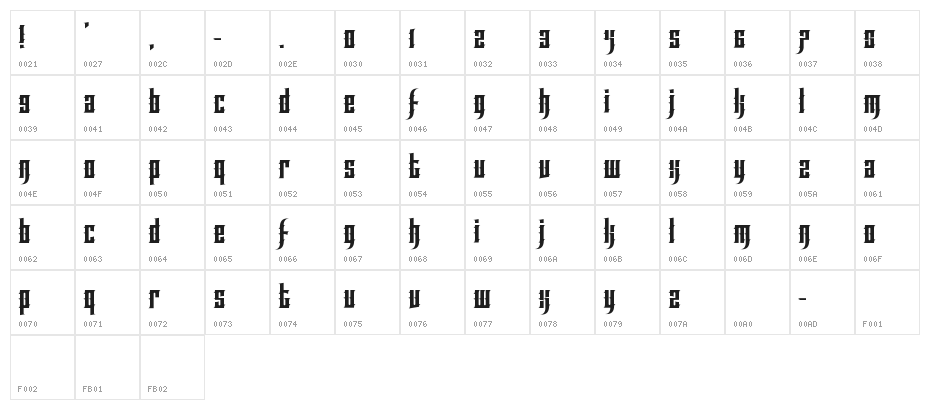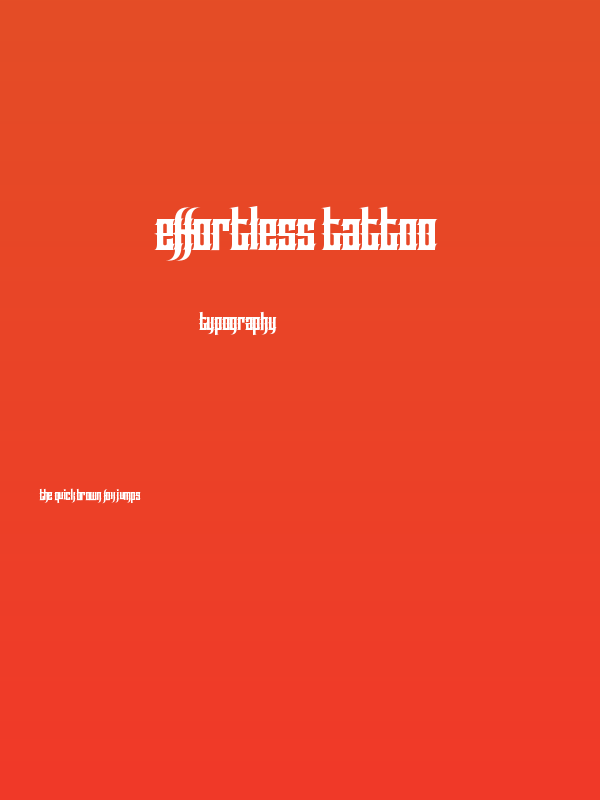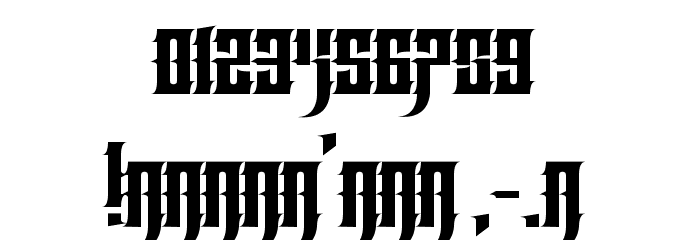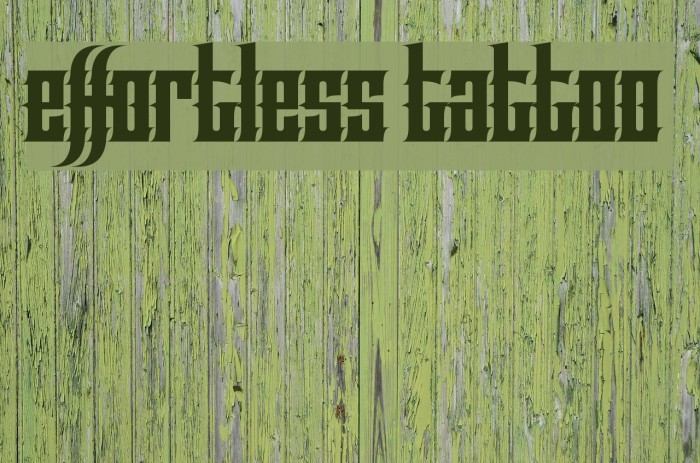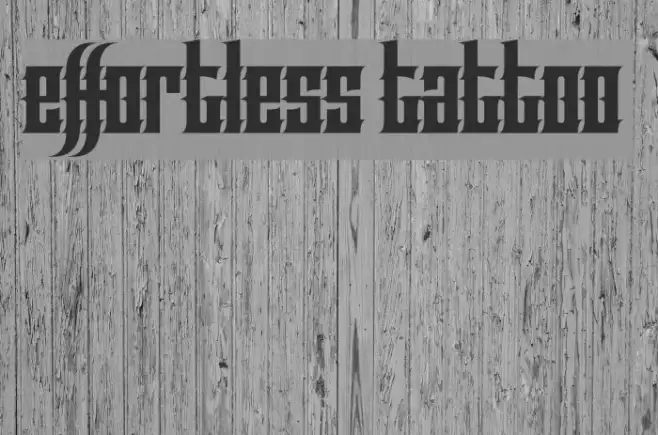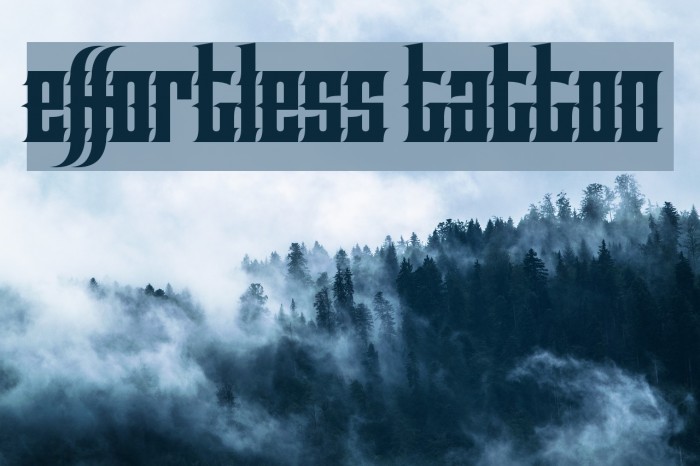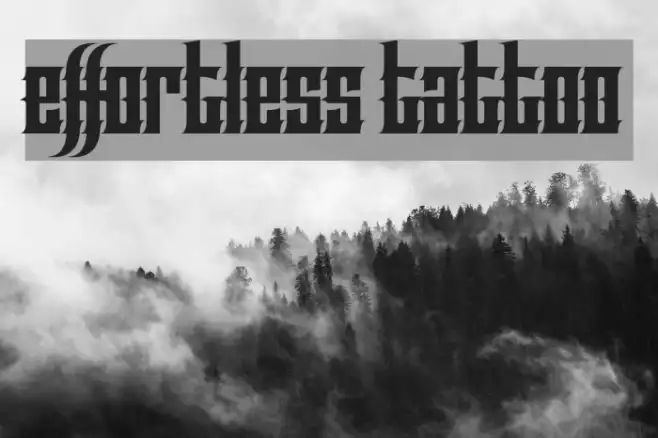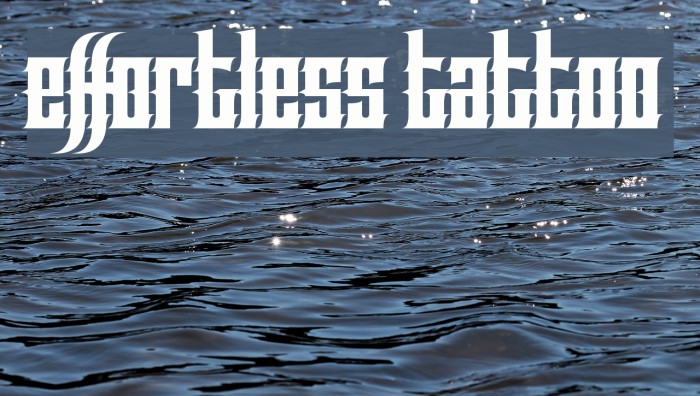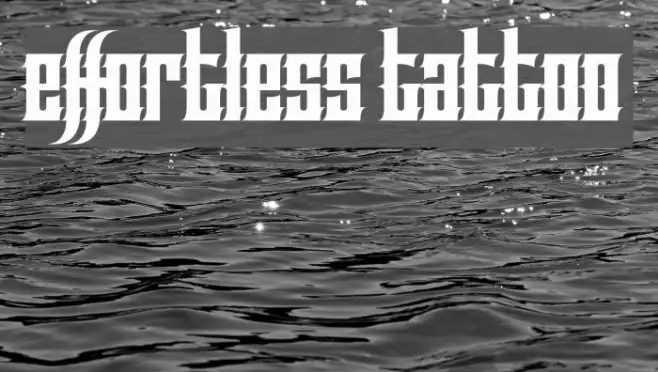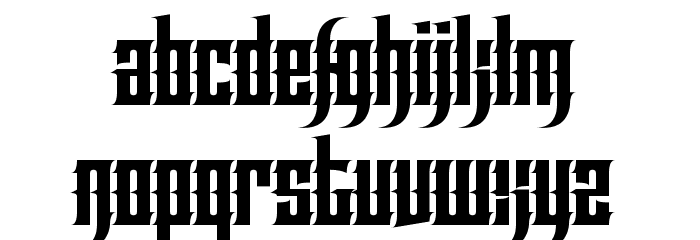
Effortless Tattoo Font
Effortless Tattoo Description
This font features a bold, gothic style with sharp, angular edges and a strong presence. The characters are tightly spaced, creating a compact and cohesive look. The uppercase and lowercase letters maintain a consistent height, contributing to a uniform appearance. The numerals and special characters are designed to match the overall aesthetic, with distinctive flourishes and a dramatic flair. This font is ideal for making a statement, with its high contrast and striking design elements.